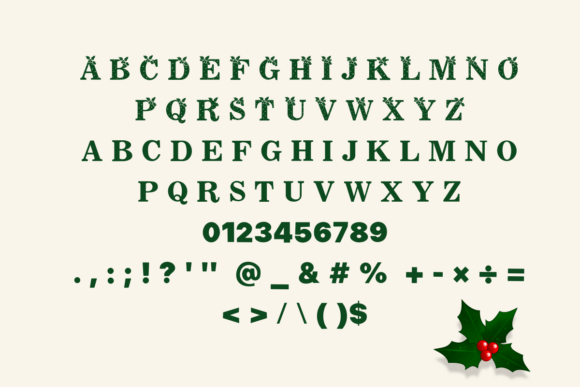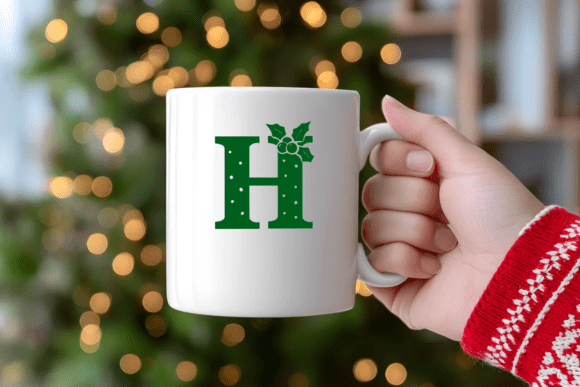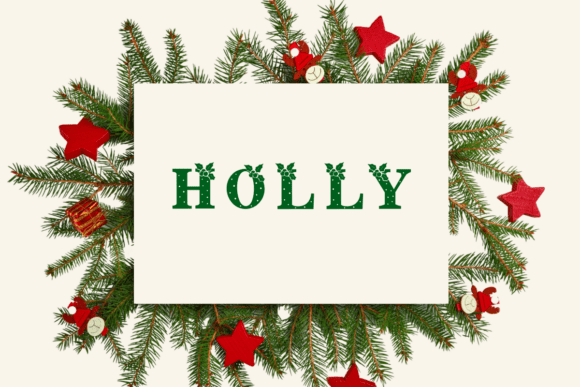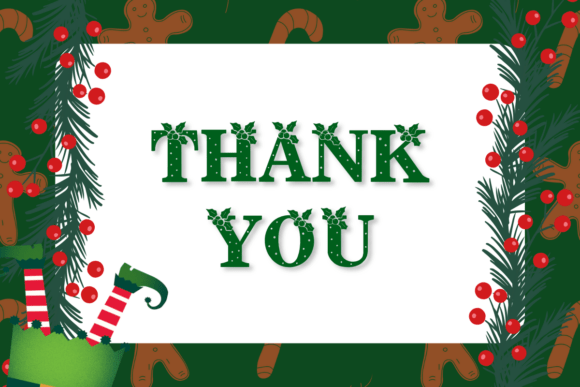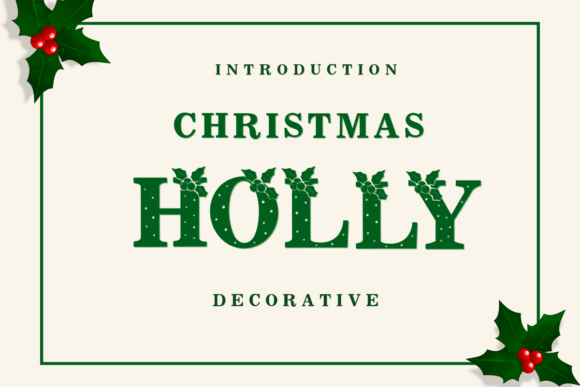
Bring Festive Cheer to Your Holiday Projects with Christmas Holly Font
The holiday season is upon us, and what better way to get into the spirit than with a festive font that captures the magic of Christmas? Look no further than Christmas Holly, a bold decorative font that’s perfect for adding a touch of whimsy to your holiday projects. Each letter is beautifully adorned with classic holly leaves and berries, making it an ideal choice for crafters, designers, and anyone who wants to sprinkle a little holly magic on their work.
A Font that’s Full of Holiday Cheer
Christmas Holly is more than just a font – it’s an experience. Imagine being able to add a touch of festive flair to your greeting cards, gift tags, party invitations, and festive signage with just a few clicks. This font is designed to bring the joyful spirit of the holidays to your designs, and with its easy-to-use format, you can create stunning projects in no time.
Perfect for Crafters and Designers
Whether you’re a crafter, designer, or simply someone who loves the holiday season, Christmas Holly is the perfect addition to your font collection. The font is compatible with a range of popular design software, including Cricut, Silhouette, Canva, and Illustrator, making it easy to incorporate into your workflow.
With Christmas Holly, the design possibilities are endless. Here are just a few ideas to get you started:
- Create stunning holiday greeting cards that will make your loved ones feel special
- Design beautiful gift tags that add a personal touch to your presents
- Make festive party invitations that set the tone for a fun and memorable celebration
- Develop eye-catching festive signage that adds a touch of holiday cheer to your business or home
Why Choose Christmas Holly?
So why choose Christmas Holly over other holiday fonts? Here are just a few reasons:
- Unique and eye-catching design: Each letter is beautifully adorned with classic holly leaves and berries, making it a standout font for the holiday season
- Versatile: The font can be used for a range of design projects, from greeting cards and gift tags to festive signage and party invitations
- High-quality: The font is designed to be clear and legible, even at small sizes, making it perfect for a range of applications
Tips for Using Christmas Holly
Here are a few tips for getting the most out of Christmas Holly:
- Experiment with different colors: The font looks great in traditional holiday colors like red and green, but don’t be afraid to try out other colors to match your brand or design style
- Mix and match with other fonts: Christmas Holly pairs well with a range of other fonts, so feel free to get creative and experiment with different combinations
- Use it for headlines and titles: The font is perfect for adding a touch of festive flair to headlines and titles, but you can also use it for body text for a more dramatic effect
Get Ready to Add Some Holiday Cheer to Your Designs